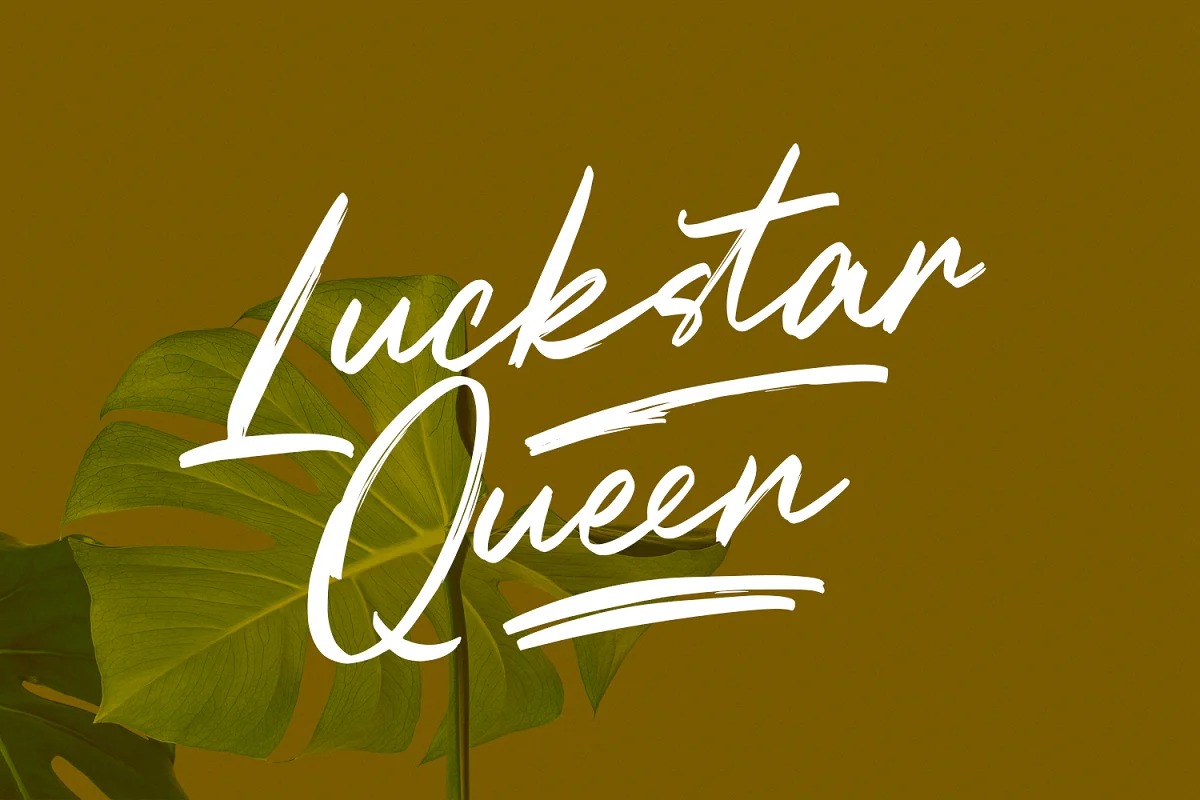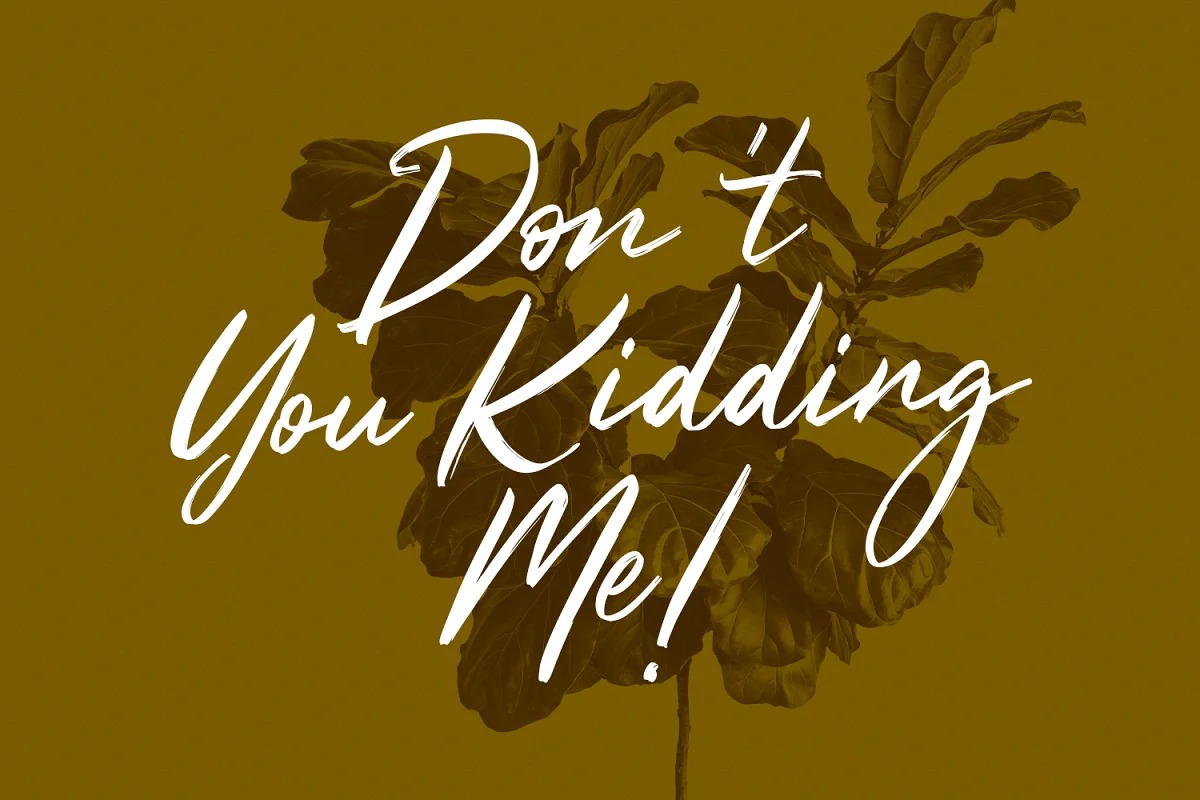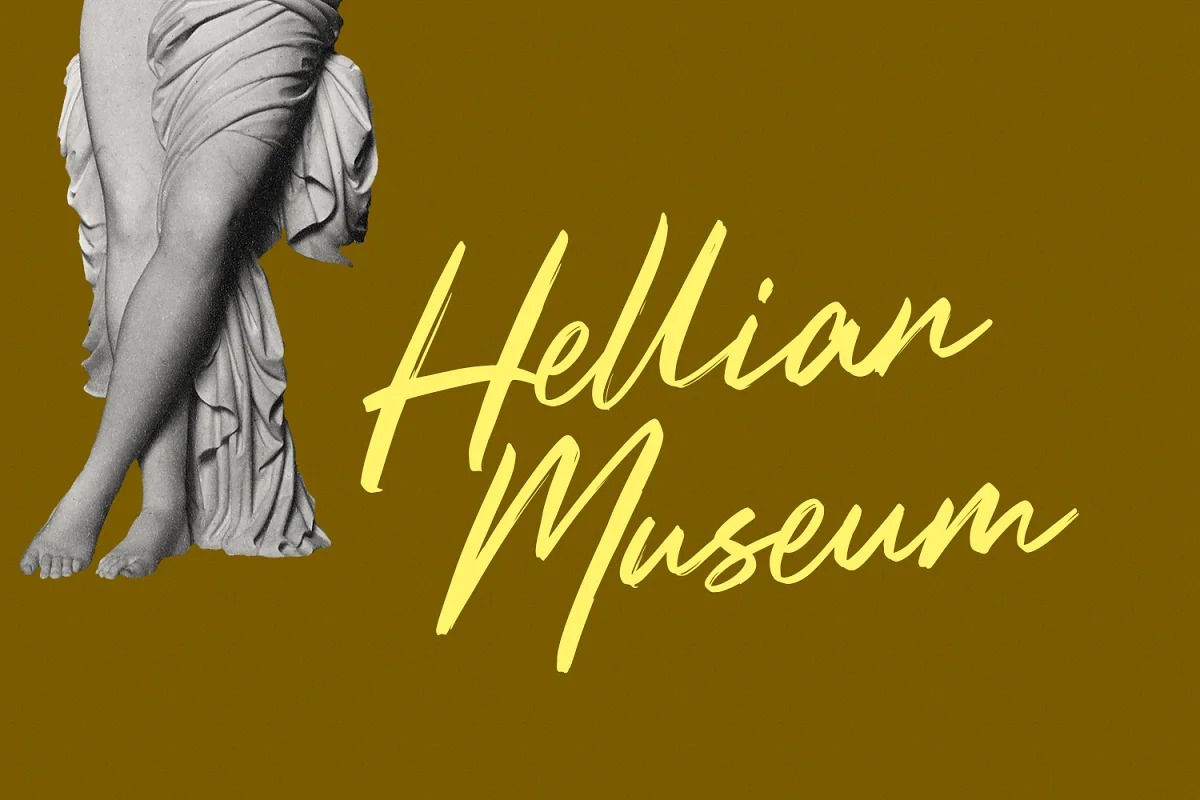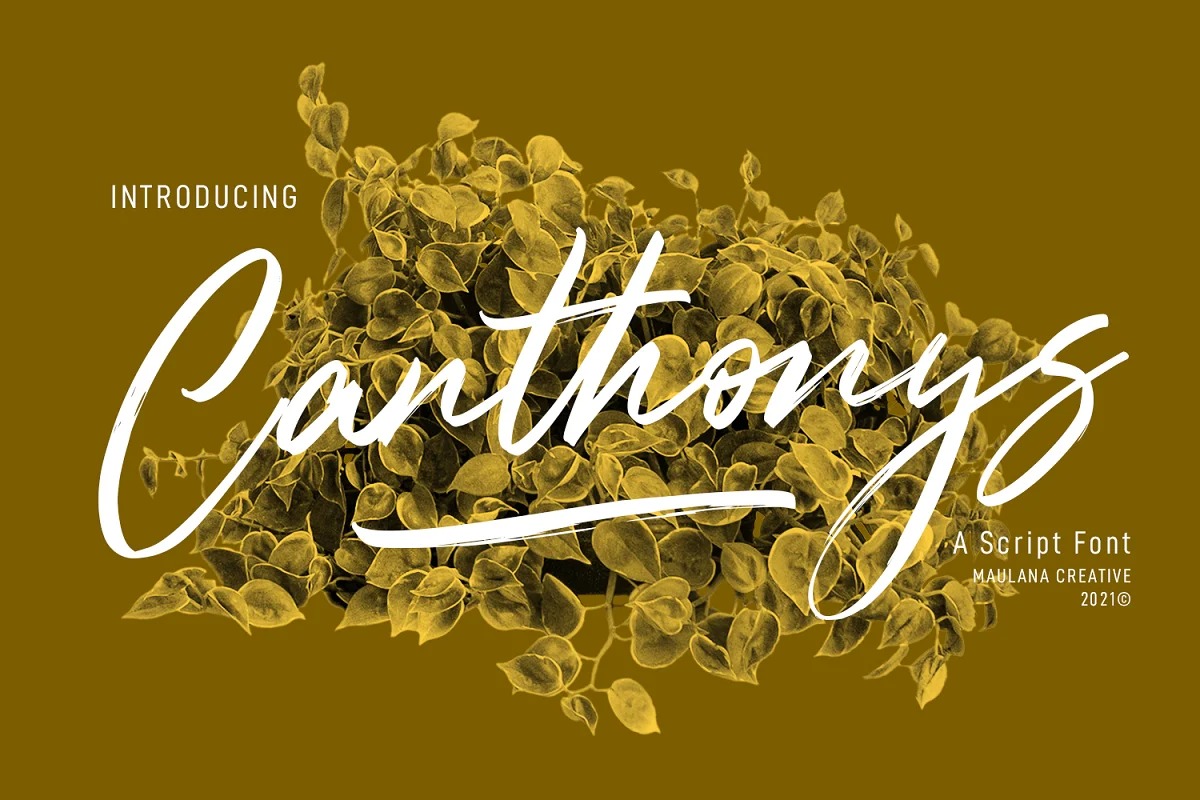
Canthonys Font
Canthonys Brush Font
This is a lovely and timeless brush typeface from designer Maulana Creative. With brush texture stroke, slanted and fun character with a bit of ligatures and swashes. To give you an extra creative work. Canthonys font support multilingual more than 100+ language. This font is good for logo design, Social media, Movie Titles, Books Titles, a short text even a long text letter and good for your secondary text font with sans or serif. Make a stunning work with Canthonys font.